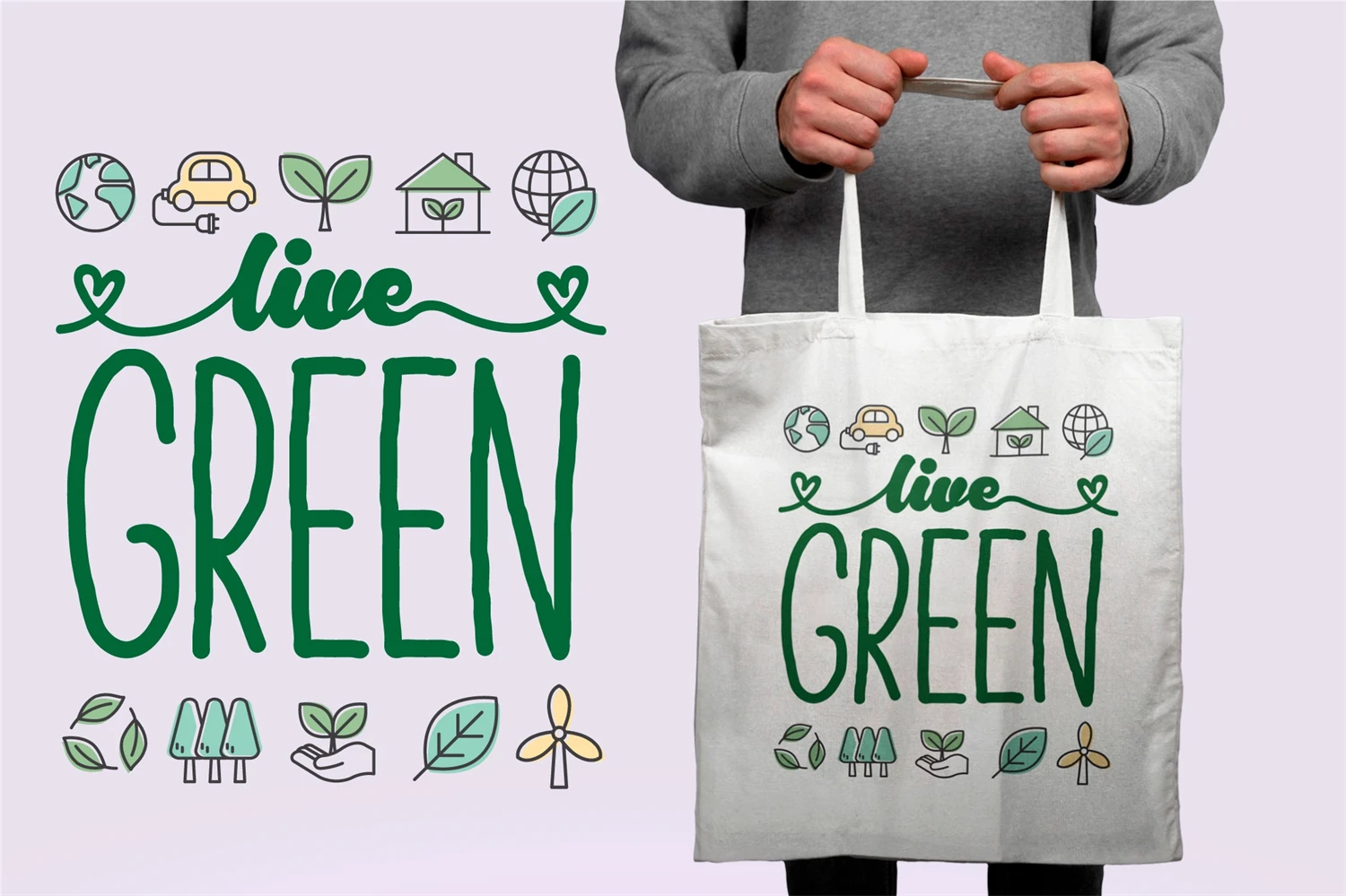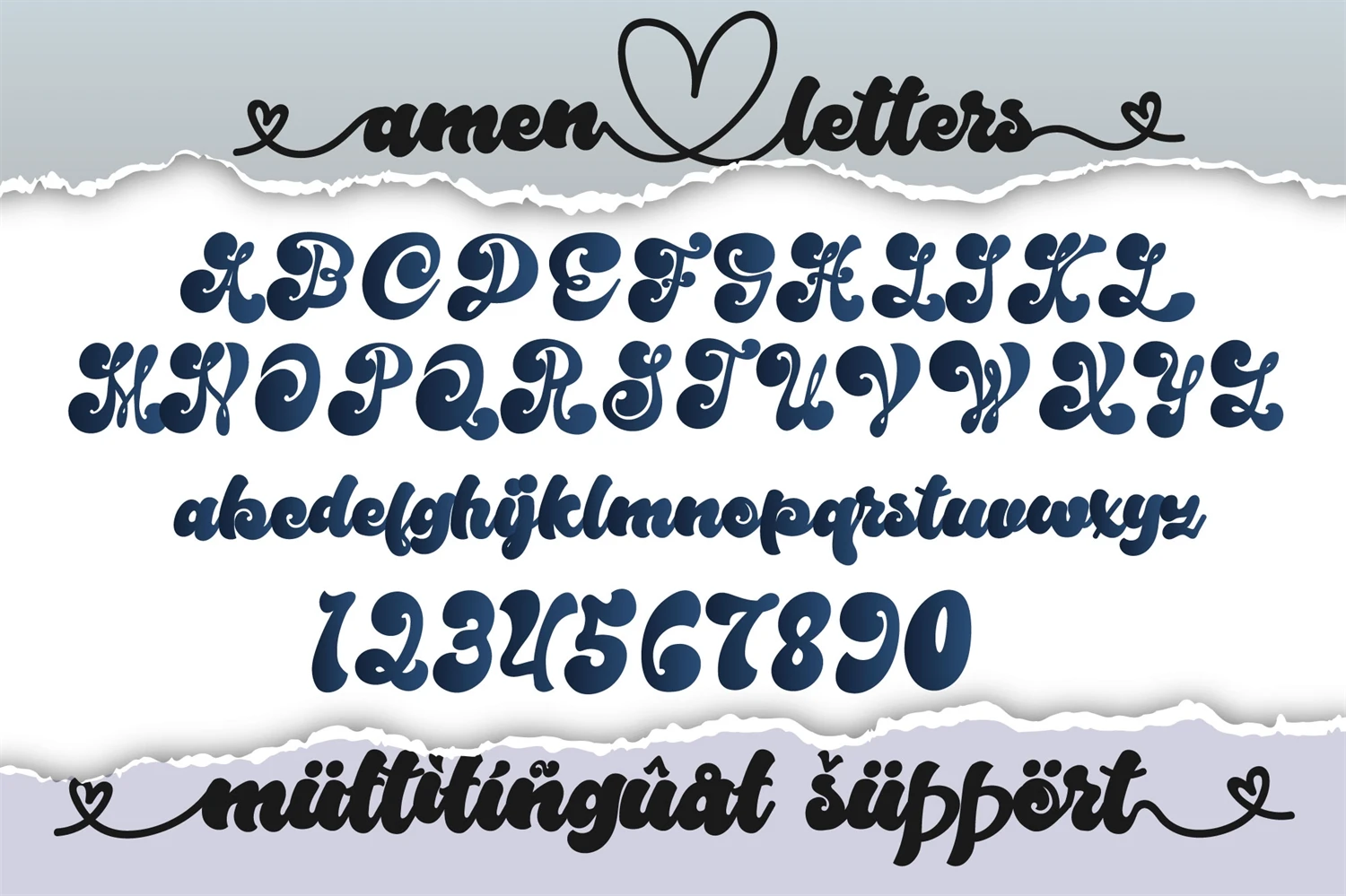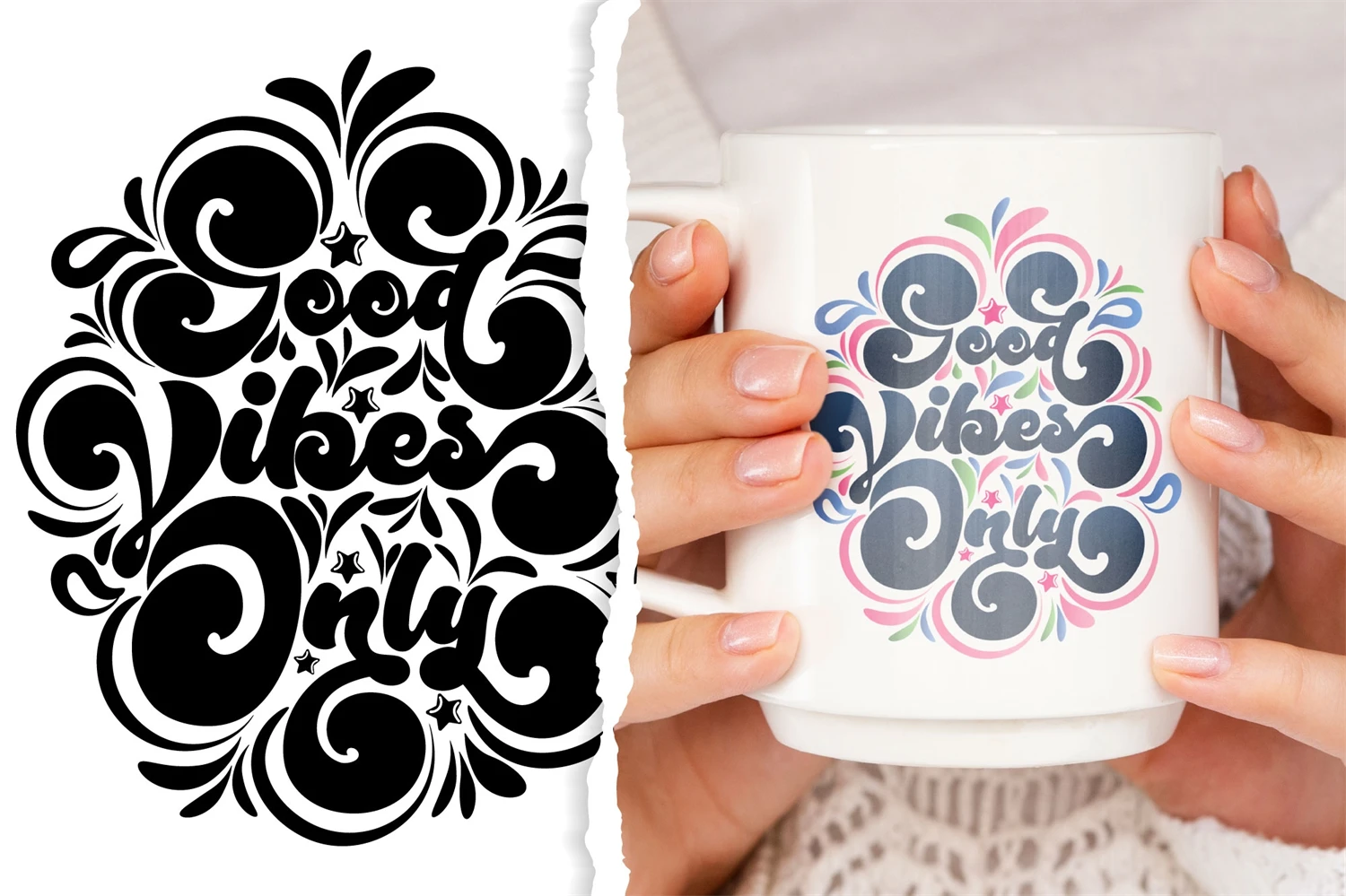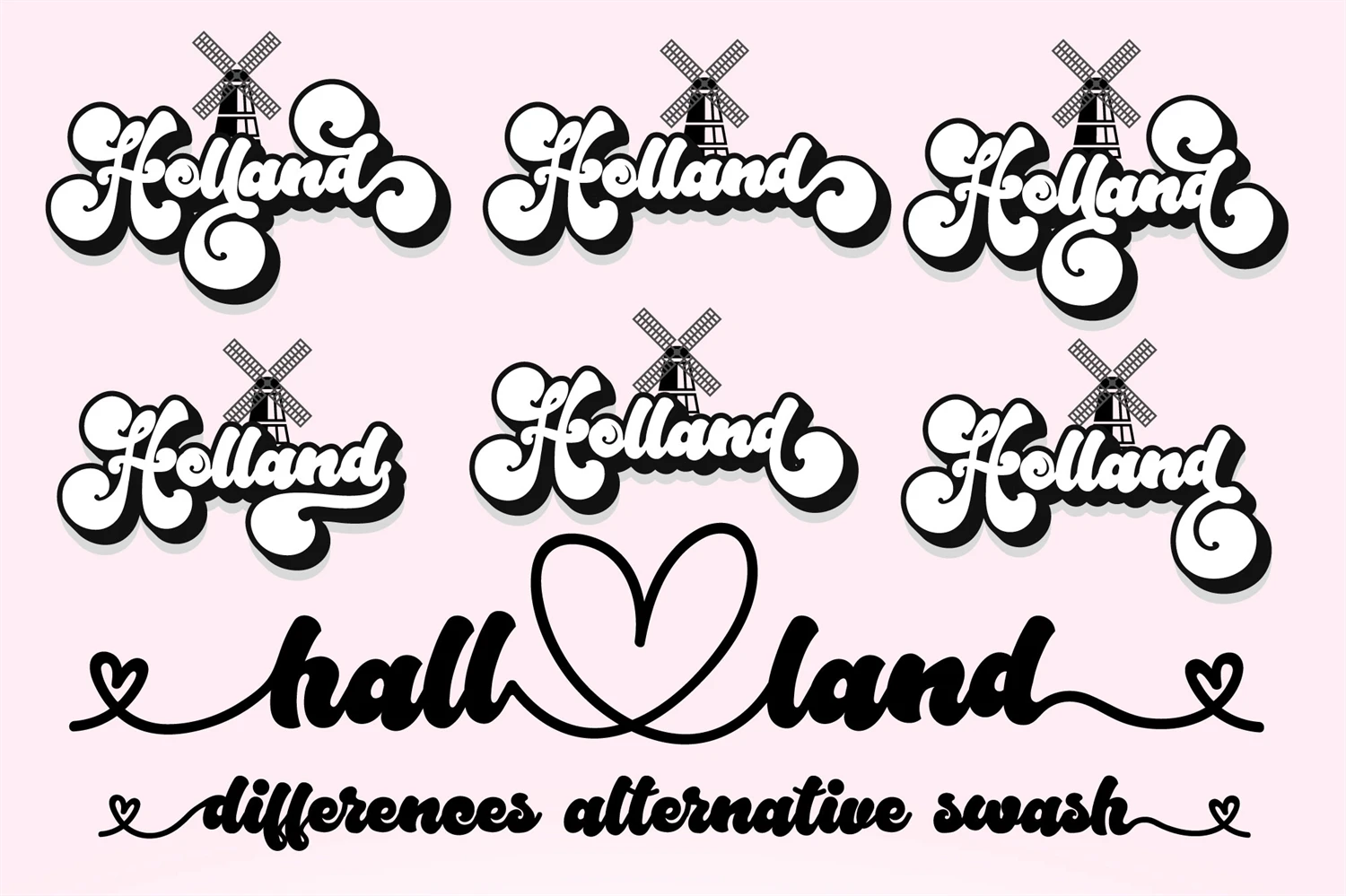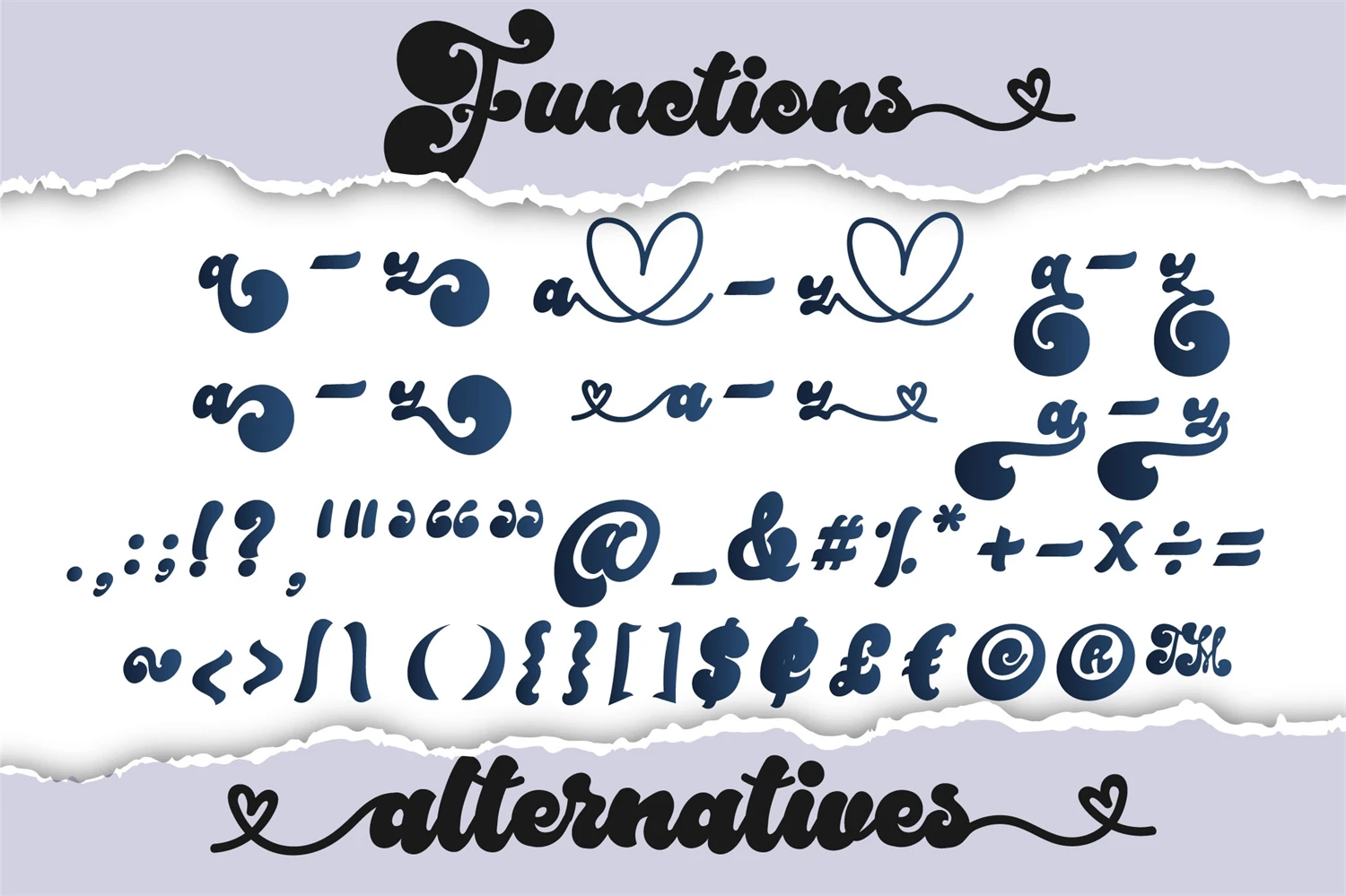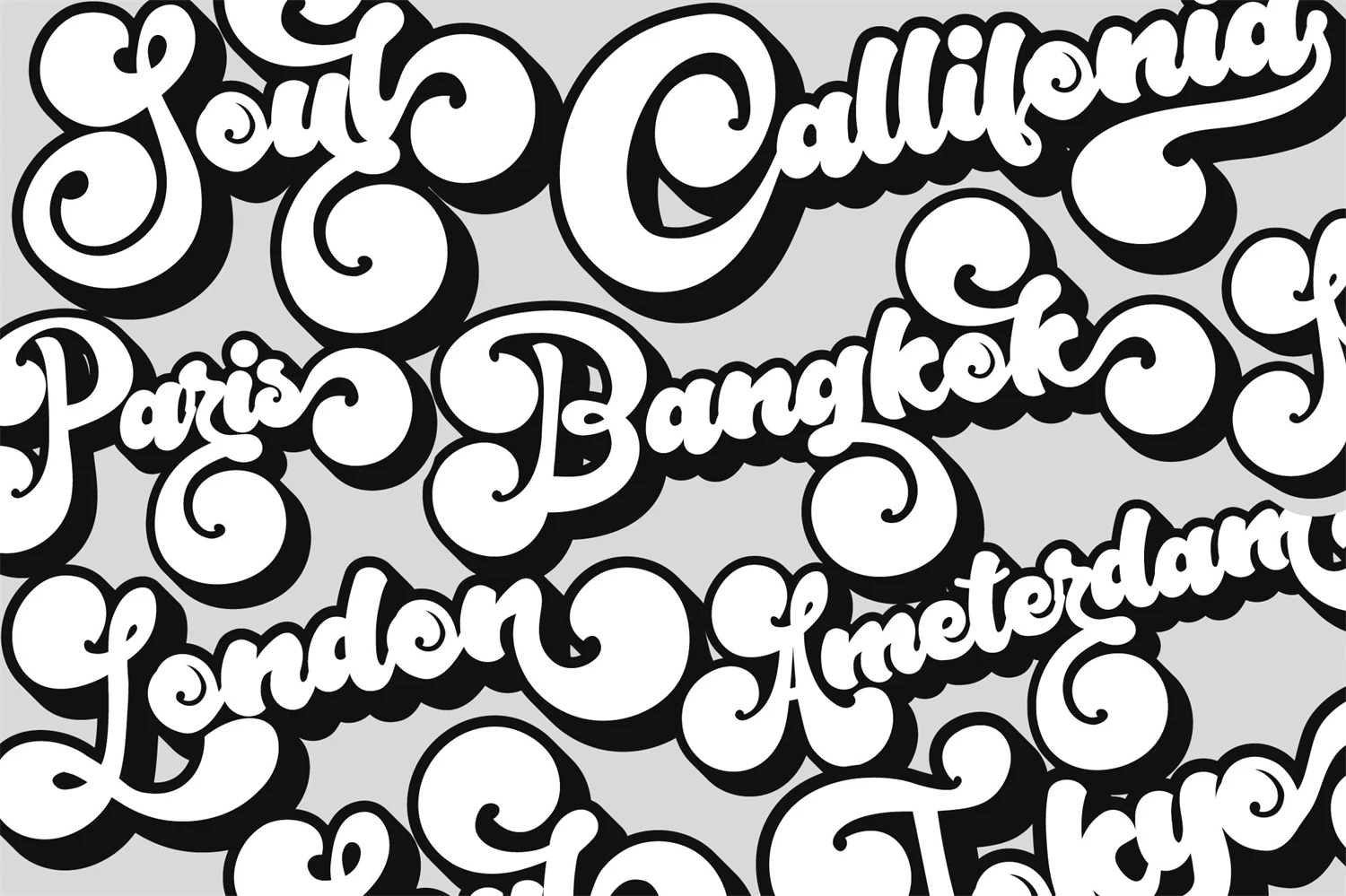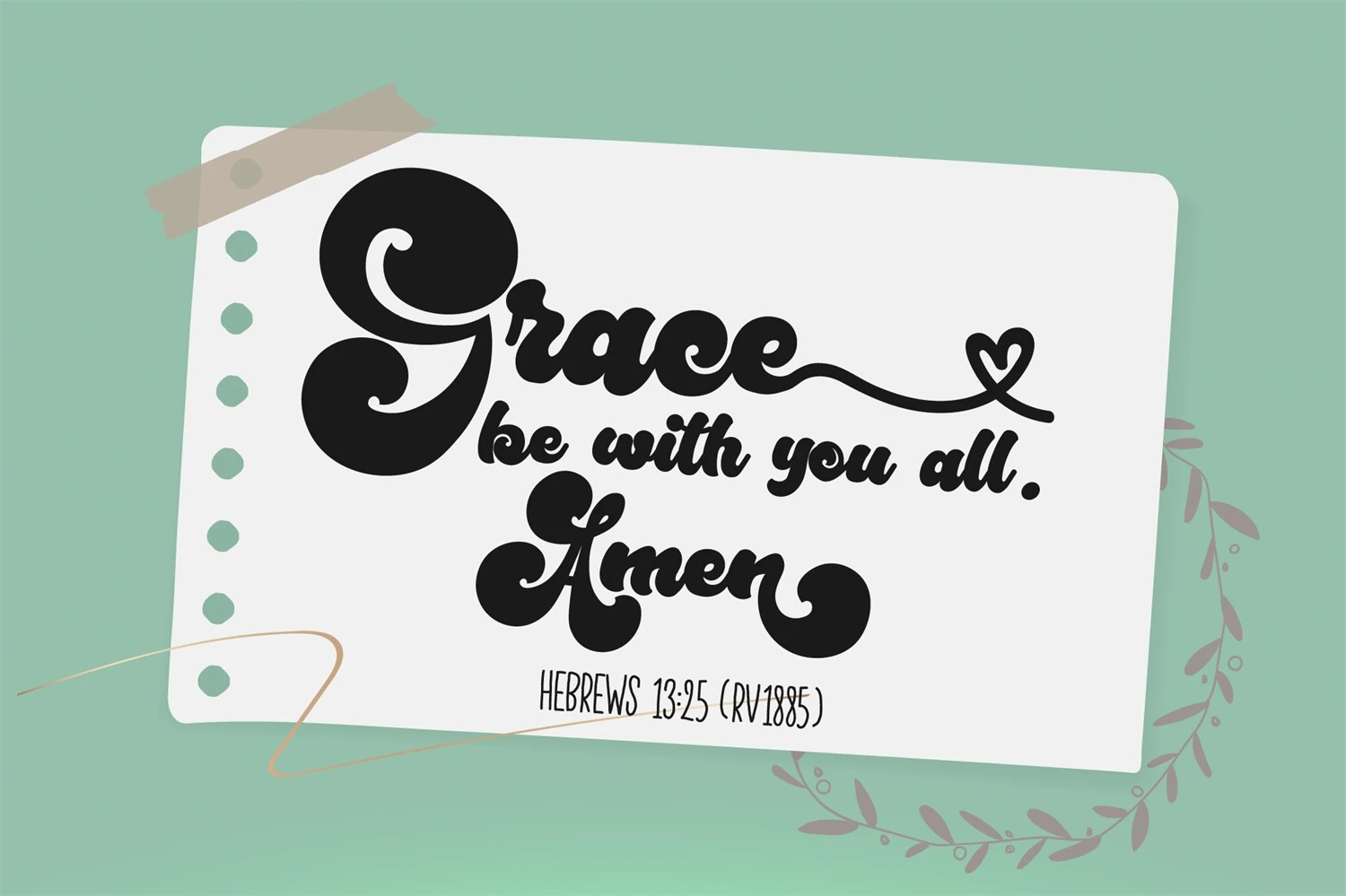
Amen Font is a retro, romantic, fashionable, and chic handwritten font. Fall in love with its incredibly versatile style and use it to create spectacular designs. With its charming and graceful curves, Amen Font adds a touch of elegance to any project. Whether you're designing wedding invitations, branding materials, posters, or social media graphics, this font will bring a sense of nostalgia and sophistication. Explore the endless possibilities and let your creativity shine with Amen Font.